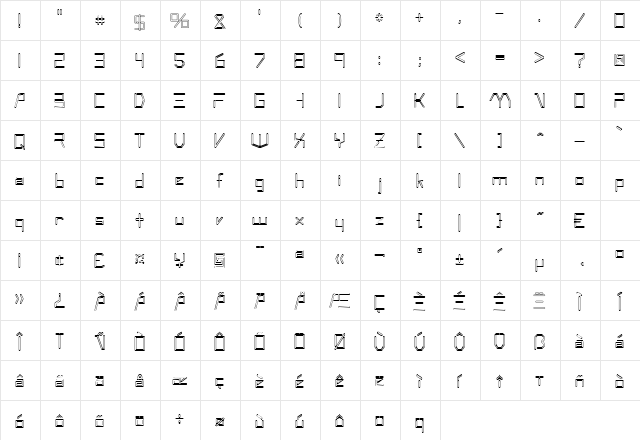
AeroflotOpen Regular
Design Context for AeroflotOpen Typeface
AeroflotOpen takes a measured approach to typography — its balanced proportions and neutral character make it a reliable workhorse for both digital and print work.